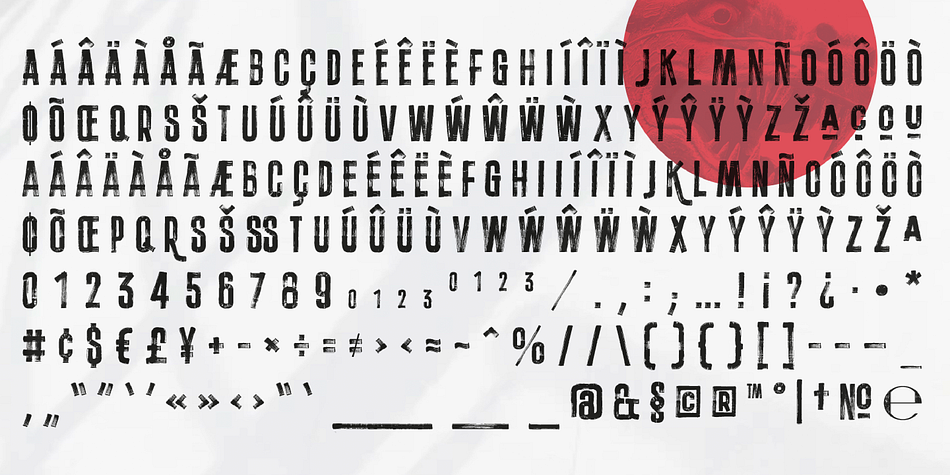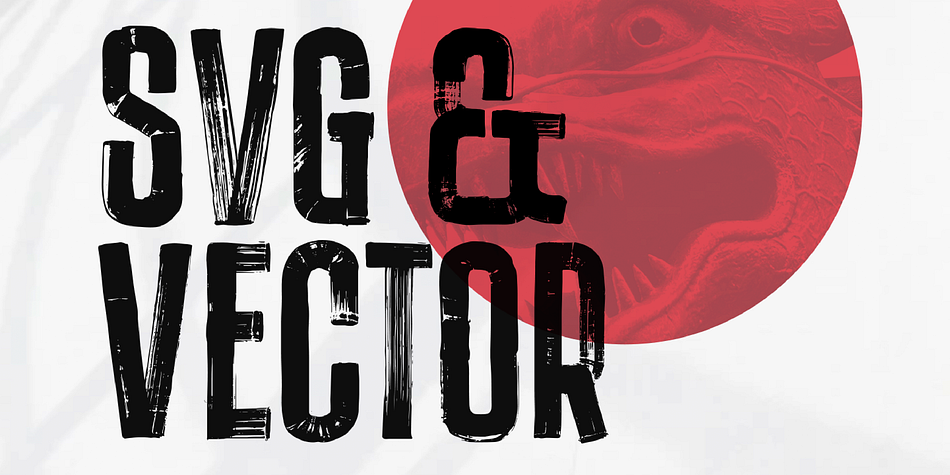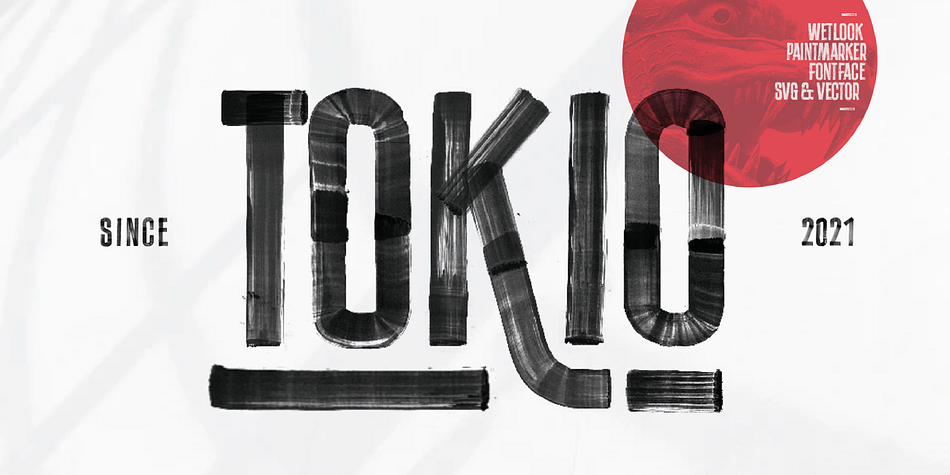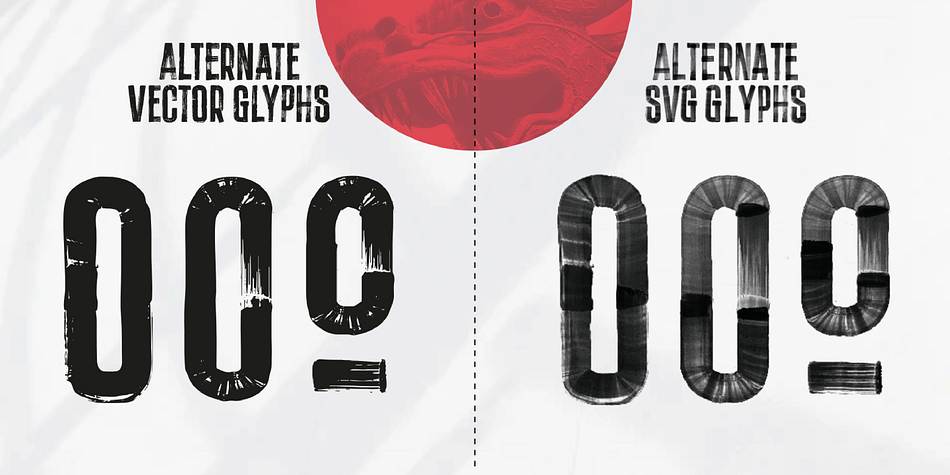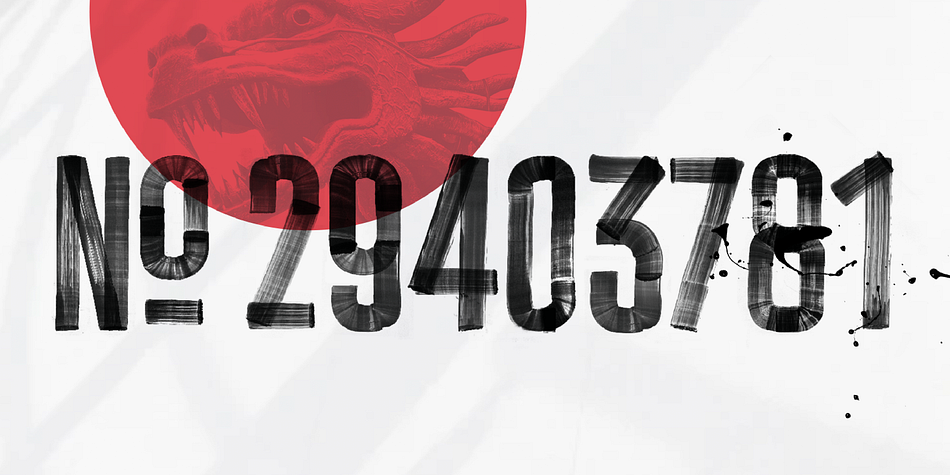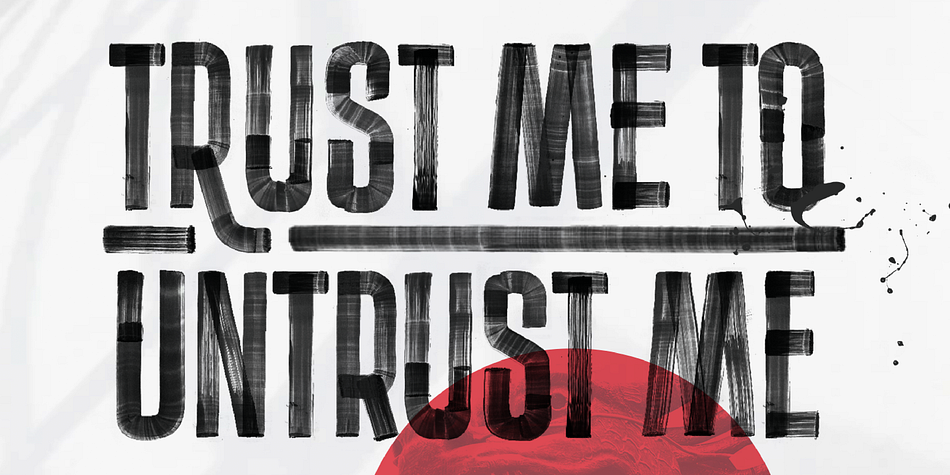
Tokio Marker
Designed by Christoph Zeugswetter, Tokio Marker is a brush display and hand display font family. This typeface has two styles and was published by xtoph.
This Fontface mimics a paintmarker written on a glossy surface. It comes in a Vector and a SVG version. The lowercase letters are alternate glyphs of the uppercases. You get the SVG Version of the Font if you purchase the family option. Or contact me via my website: www.x-toph.com